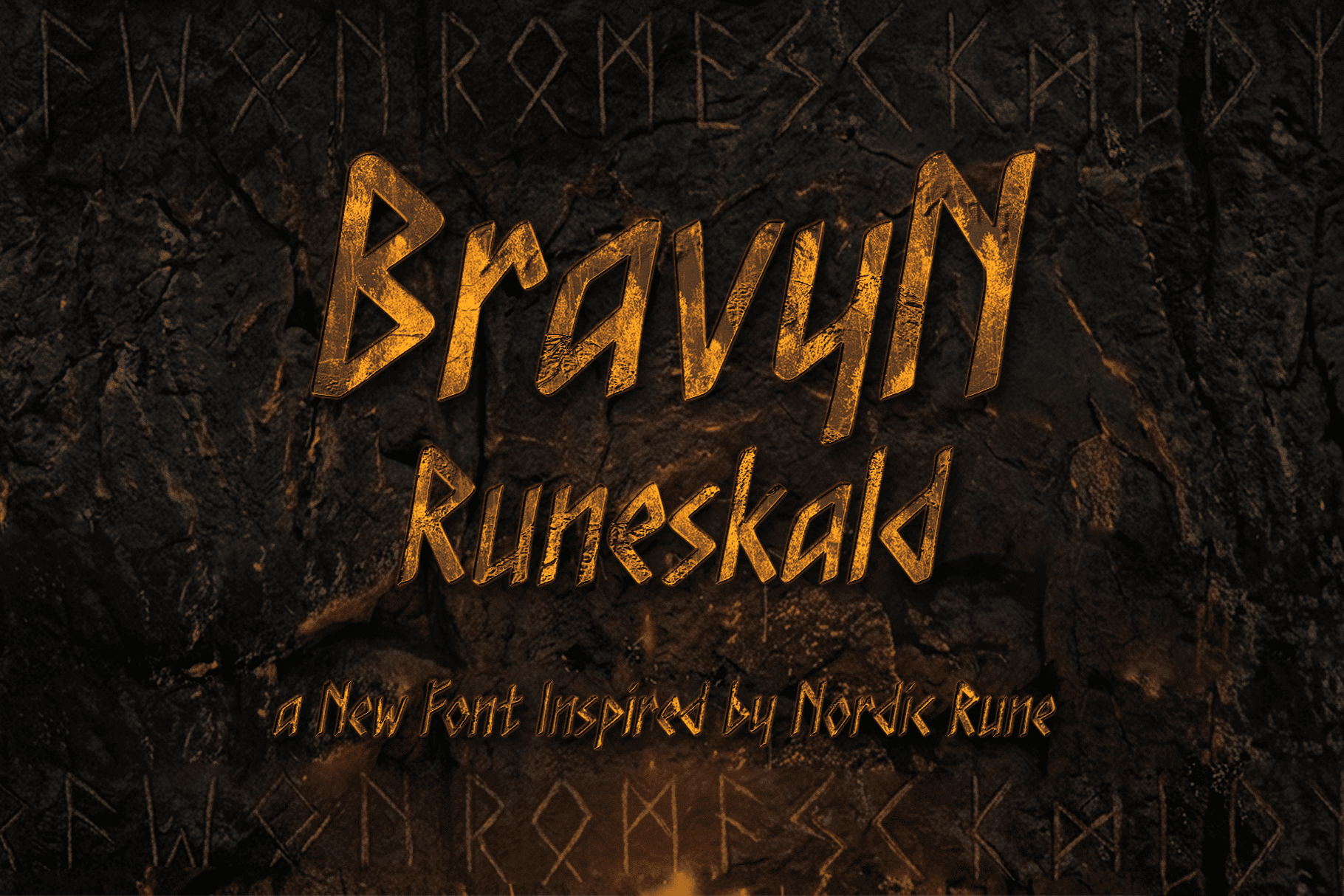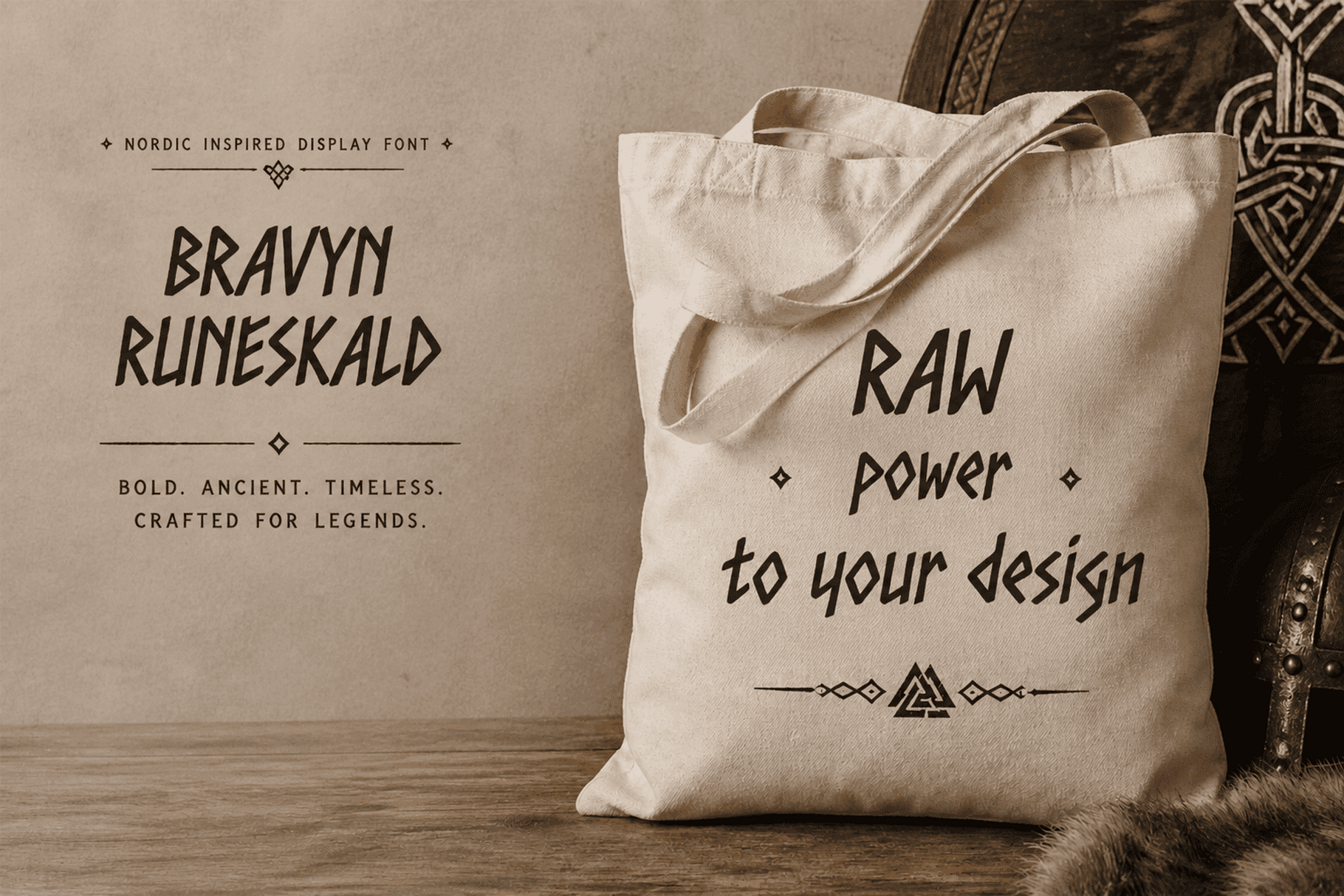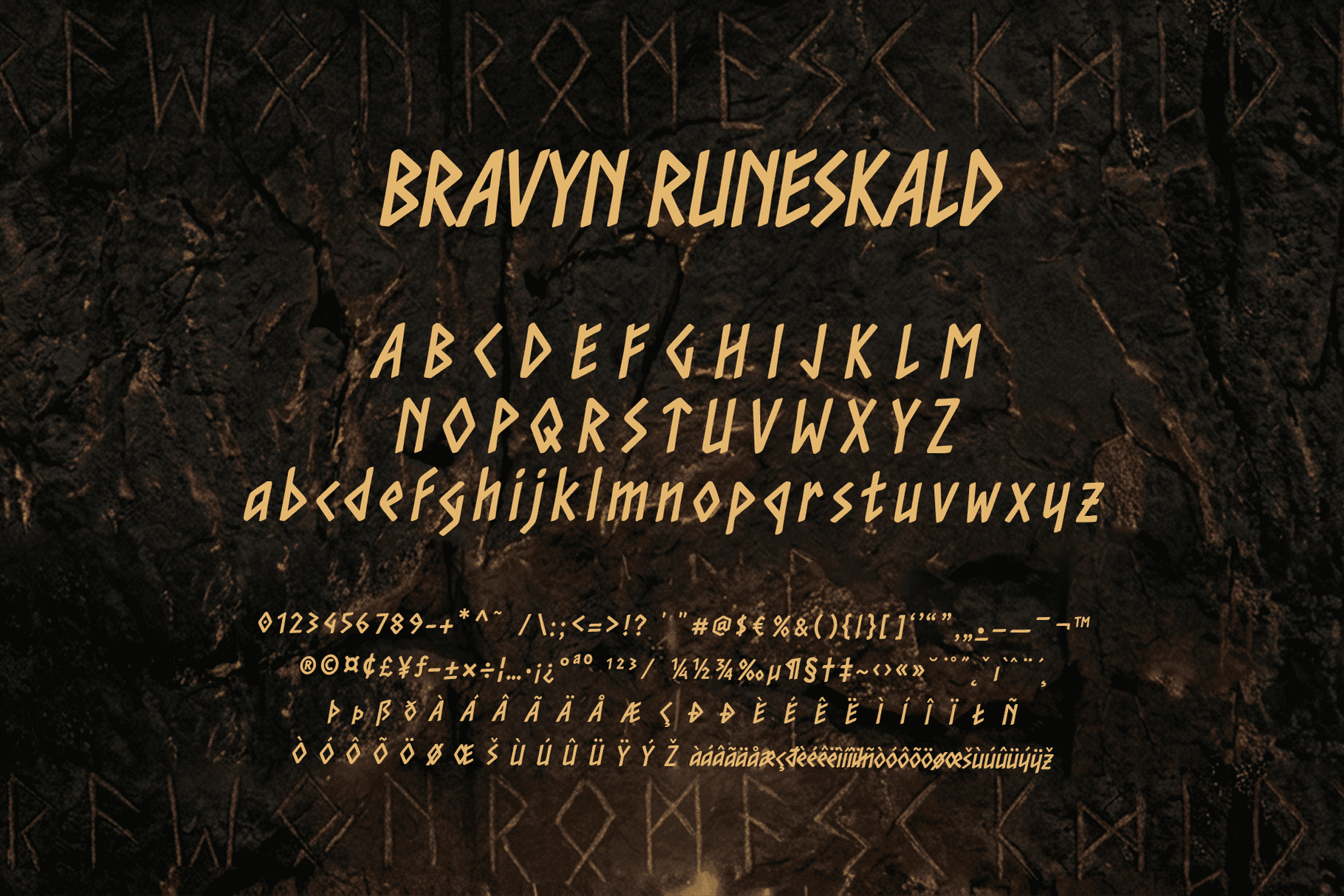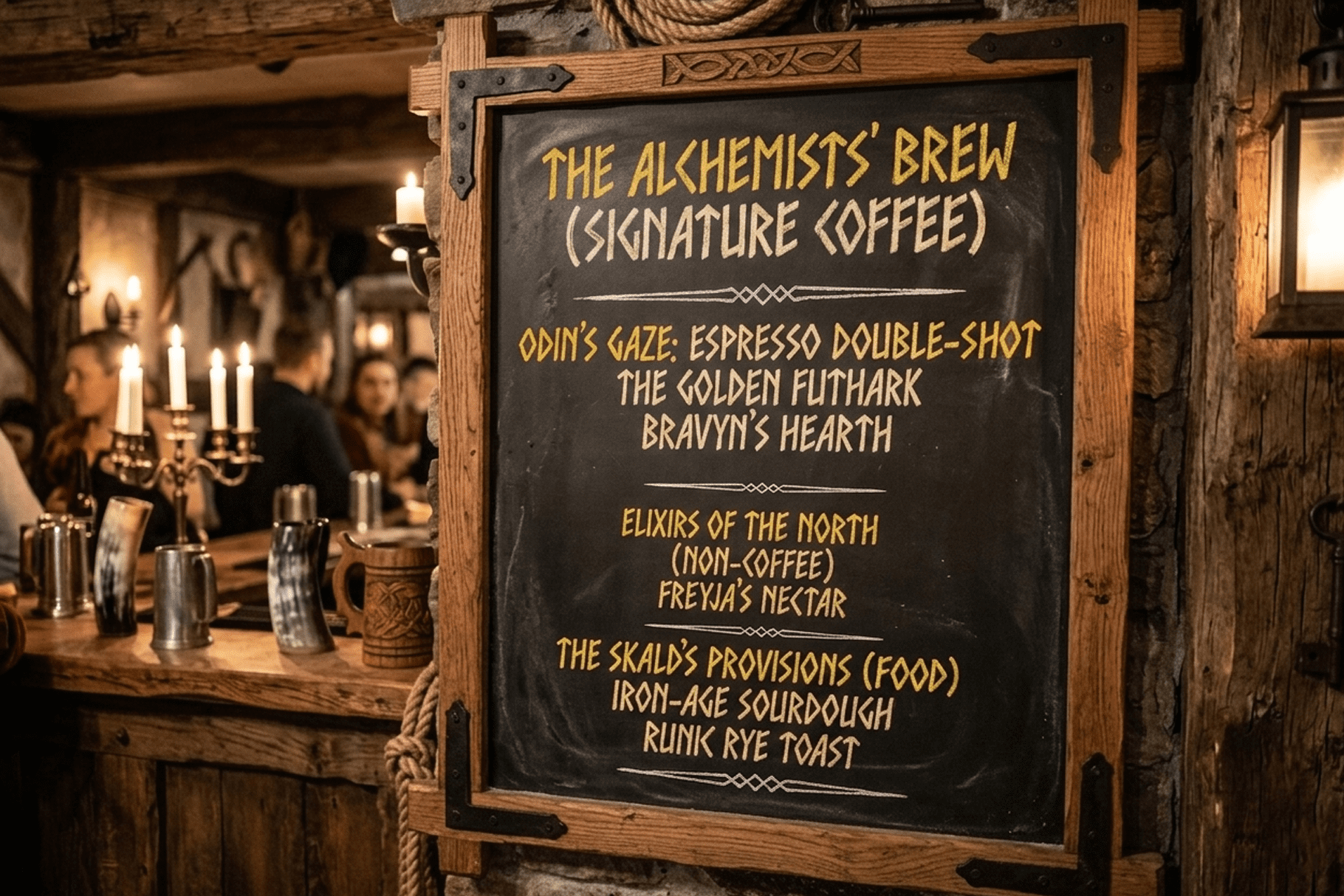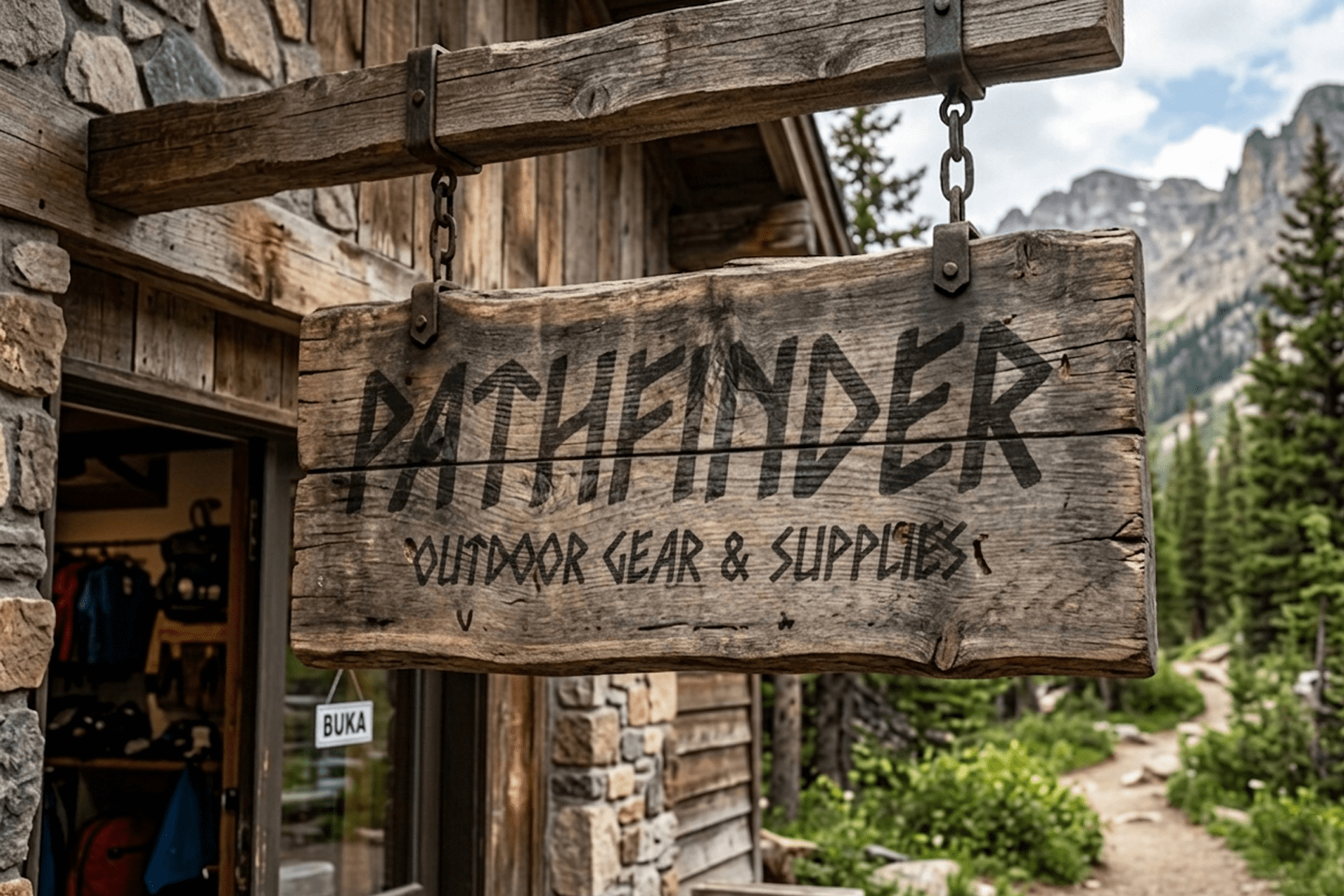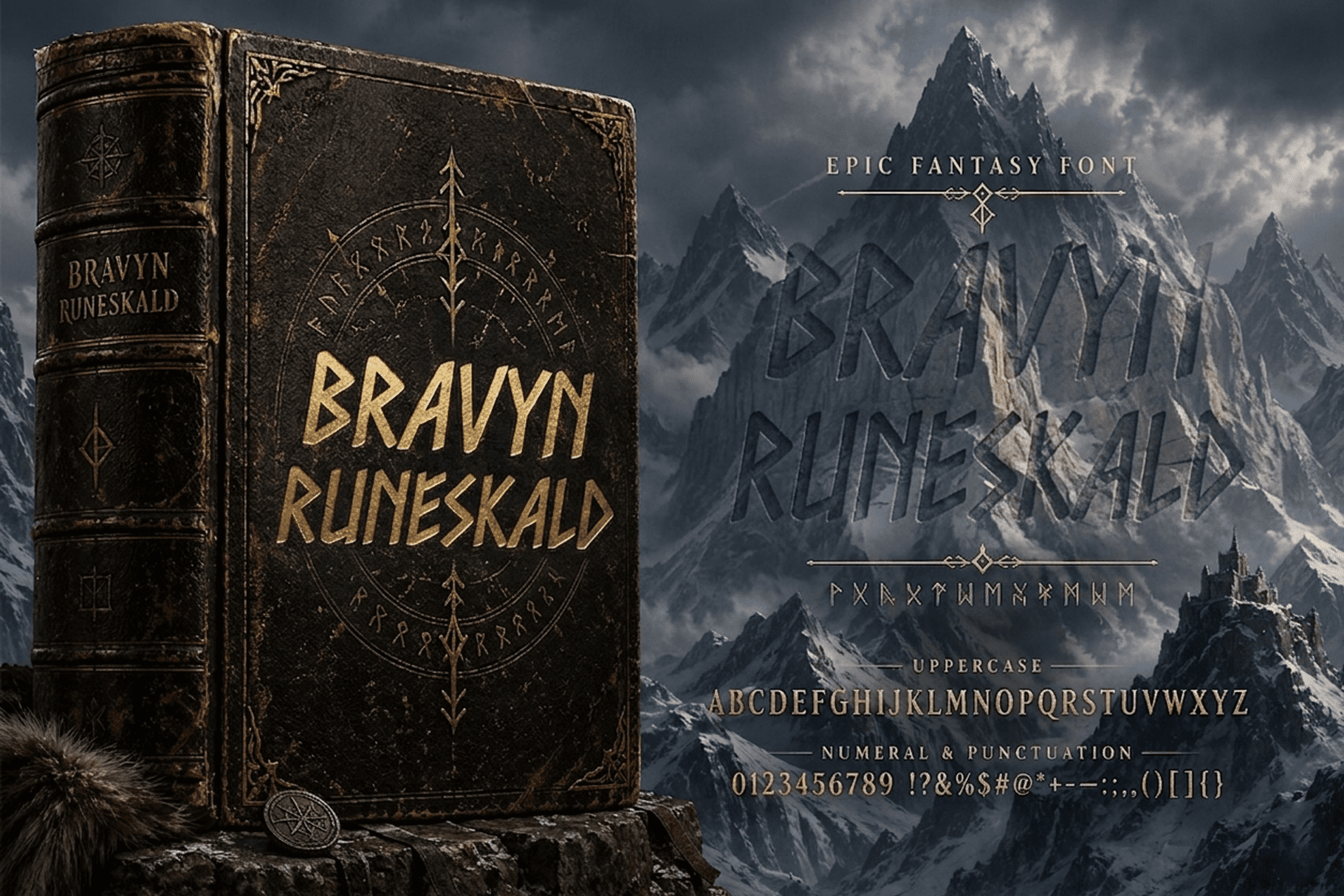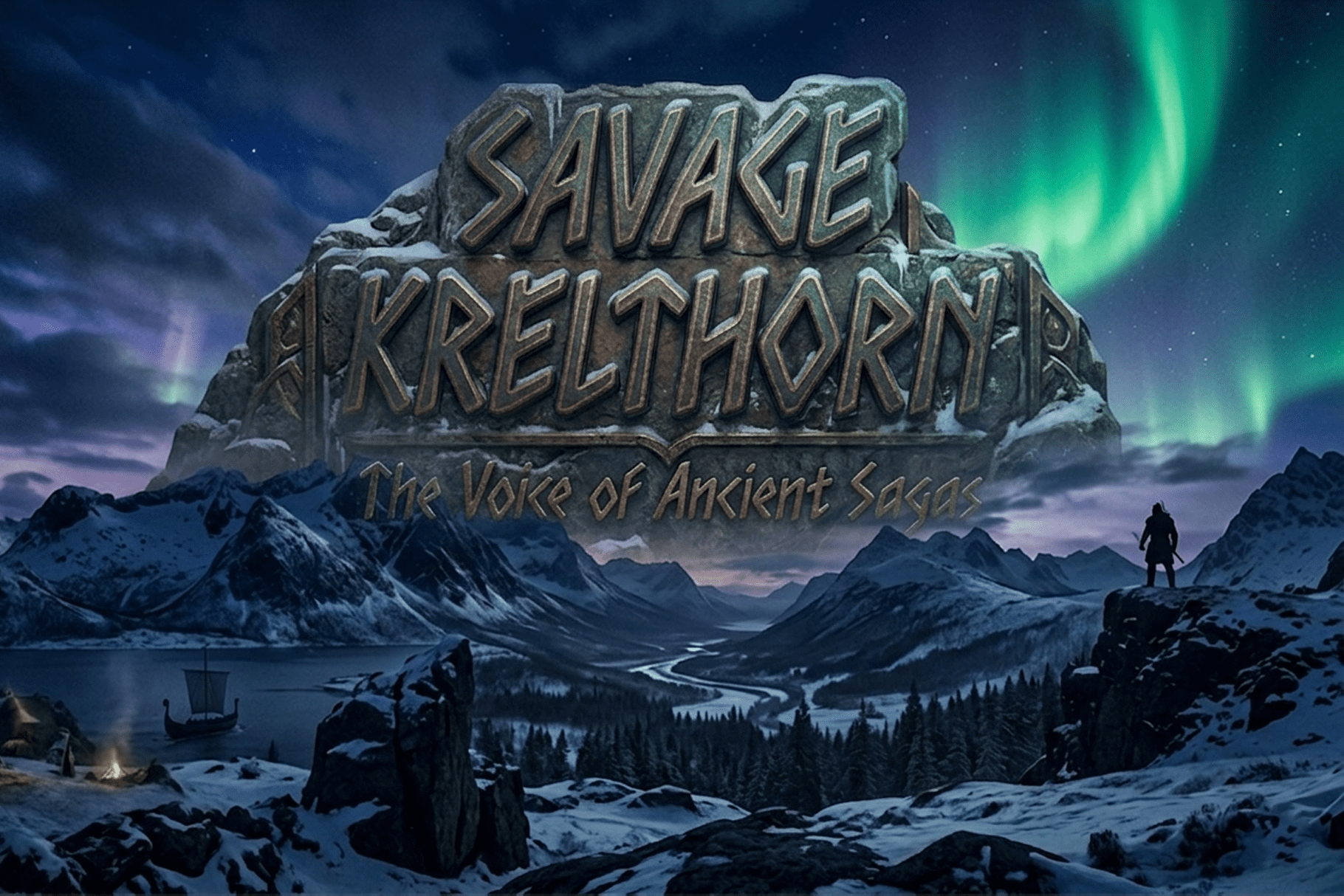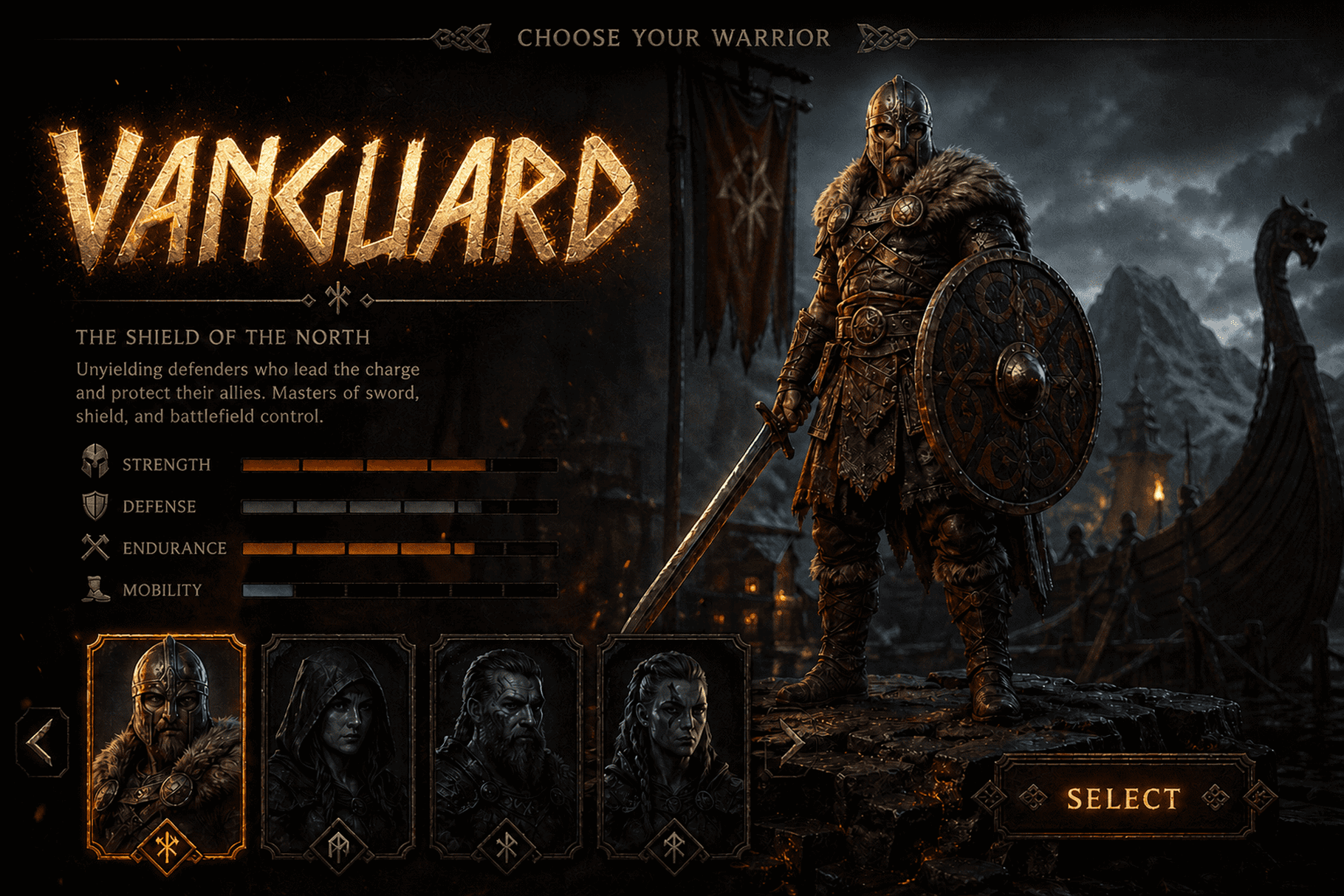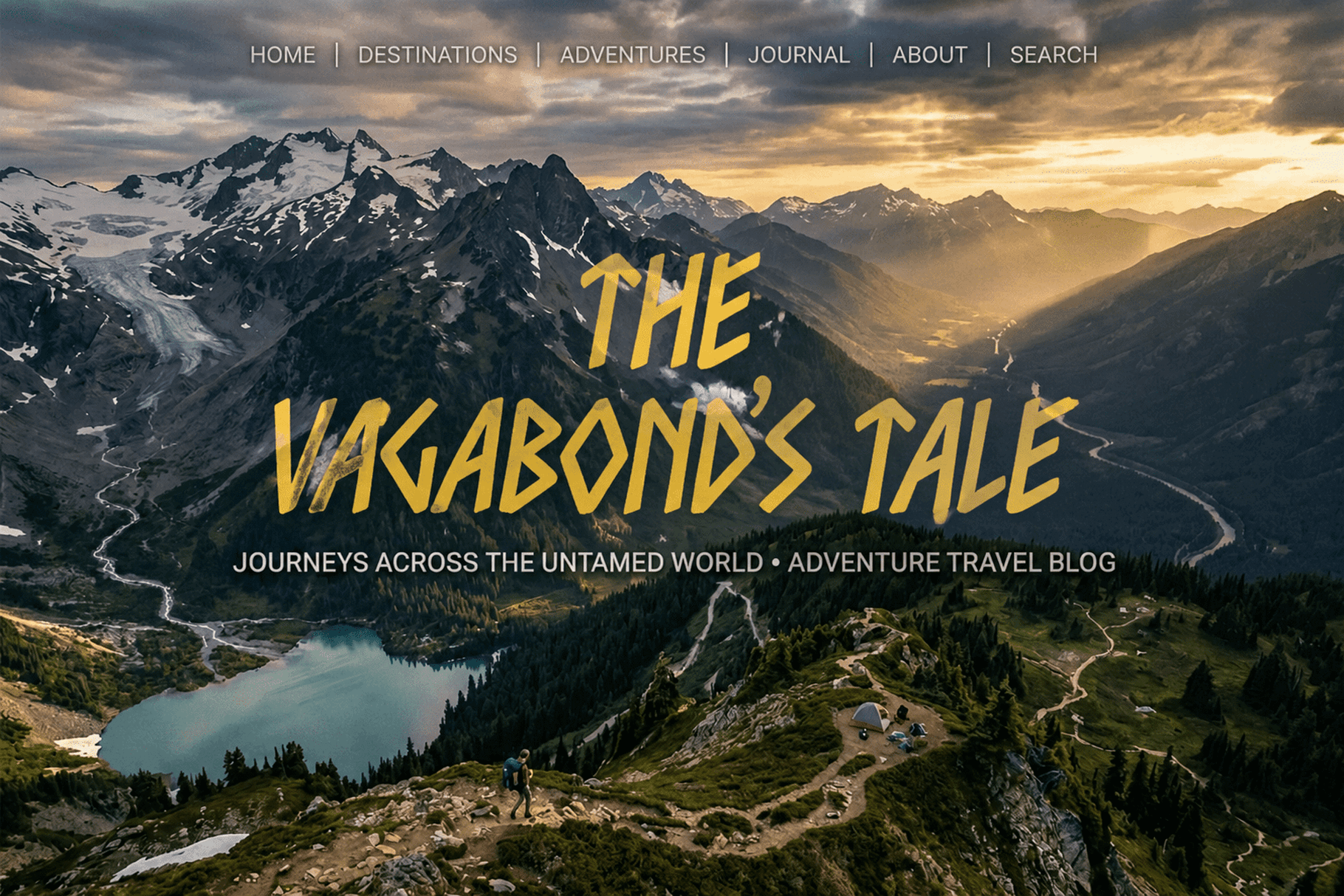
Unleash raw power into your designs.
Bravyn Runeskald is not just a font—it is a statement carved with intention. Inspired by ancient runic markings and bold handwritten strokes, it captures a sense of strength, motion, and untamed character that instantly commands attention.
Every letter feels alive. The sharp angles, dynamic slant, and irregular rhythm create a visual flow that breaks away from polished, predictable typography. Instead, it delivers something more primal—something real. This is the kind of font that doesn’t whisper; it speaks with force.
Designed for creators who want their work to stand out, this font is perfect for logos, posters, apparel, game titles, album covers, and branding projects that need a strong identity. It brings a handcrafted edge that feels both ancient and modern at the same time.
Unlike generic handwritten fonts, this one carries weight. It has personality. It has attitude. It tells a story before a single word is even read.
Whether you’re building a bold brand, designing a striking headline, or creating visuals that demand attention, this font gives you the tools to make an unforgettable impression.
Key features:
Bold, angular, and expressive style
Handcrafted feel with strong visual rhythm
Ideal for display, branding, and headline use
Unique character that stands apart from standard fonts
If your design needs strength, energy, and a fearless voice, this font delivers.
Make your work impossible to ignore.